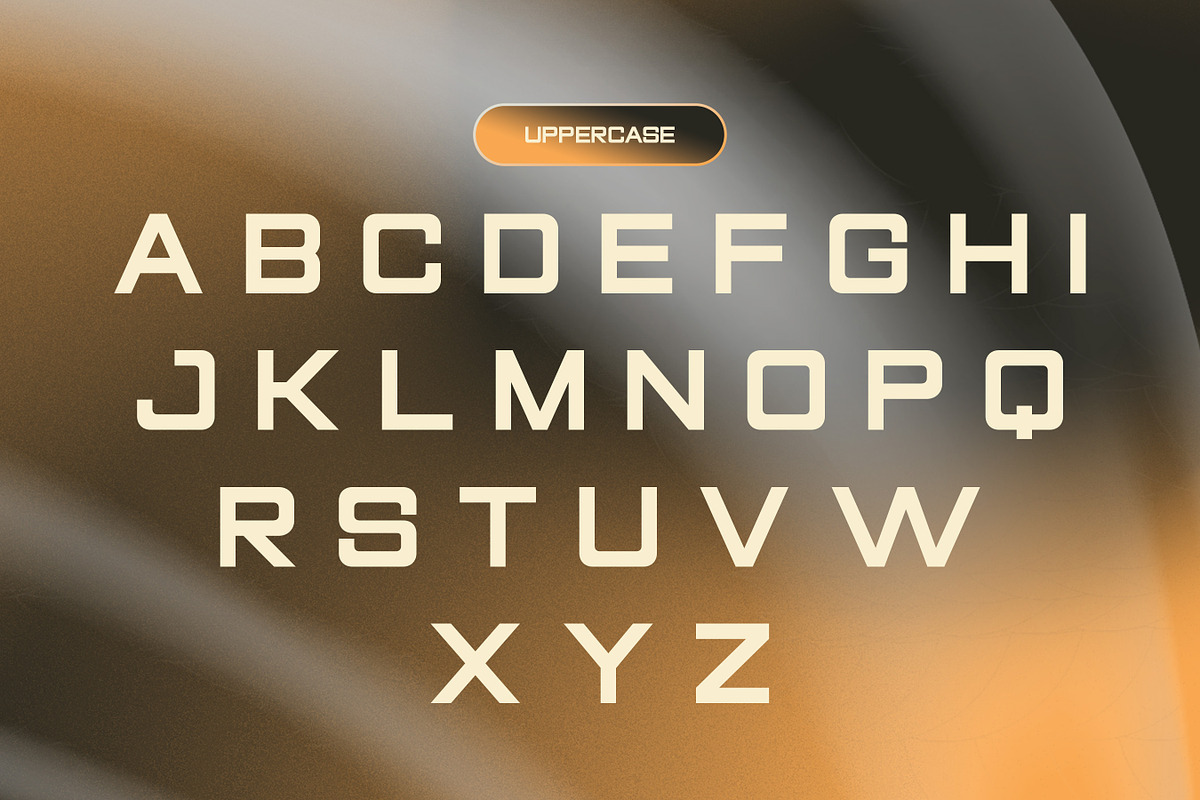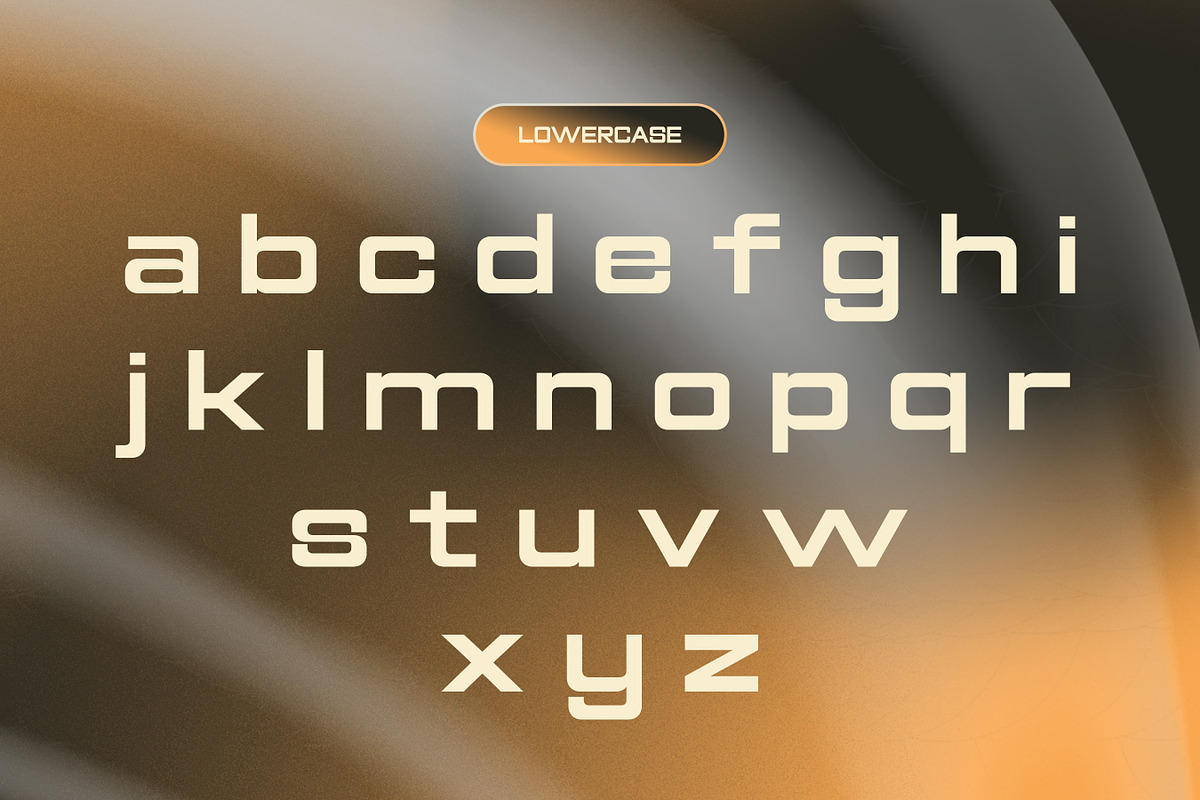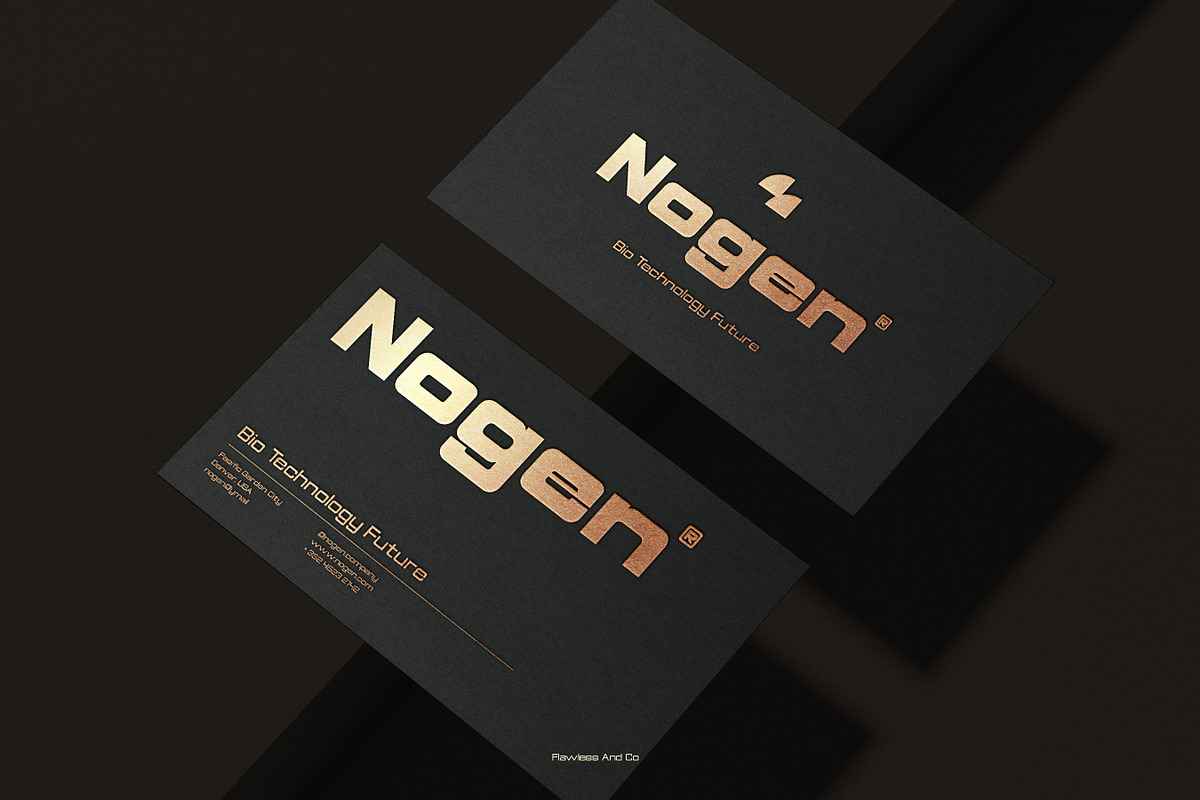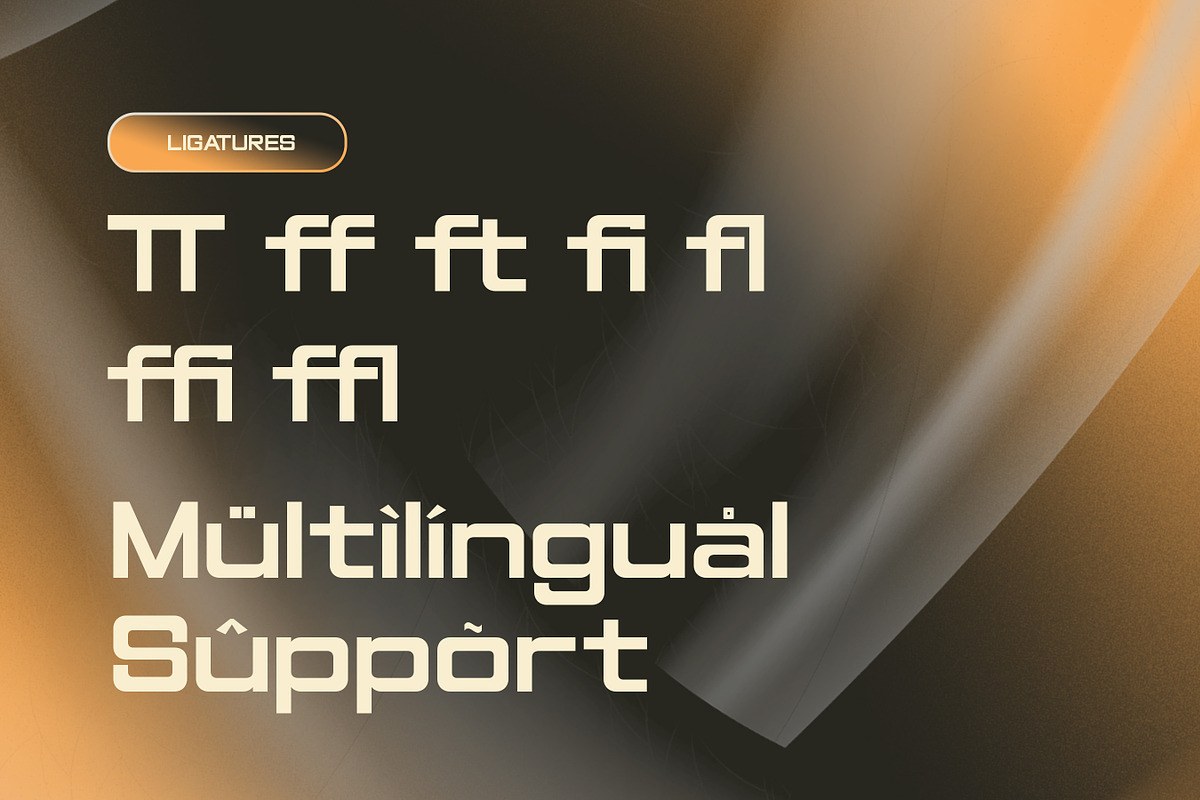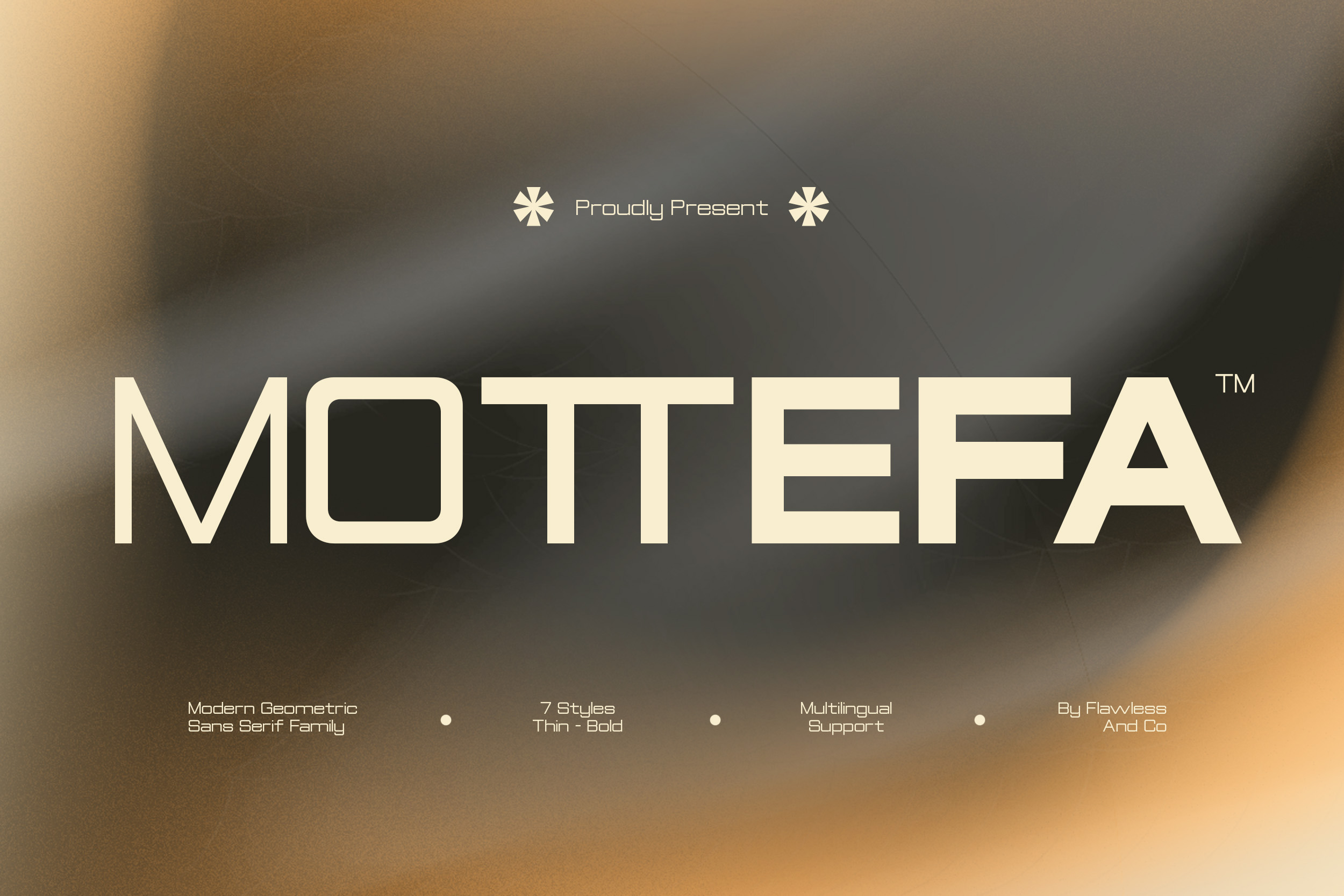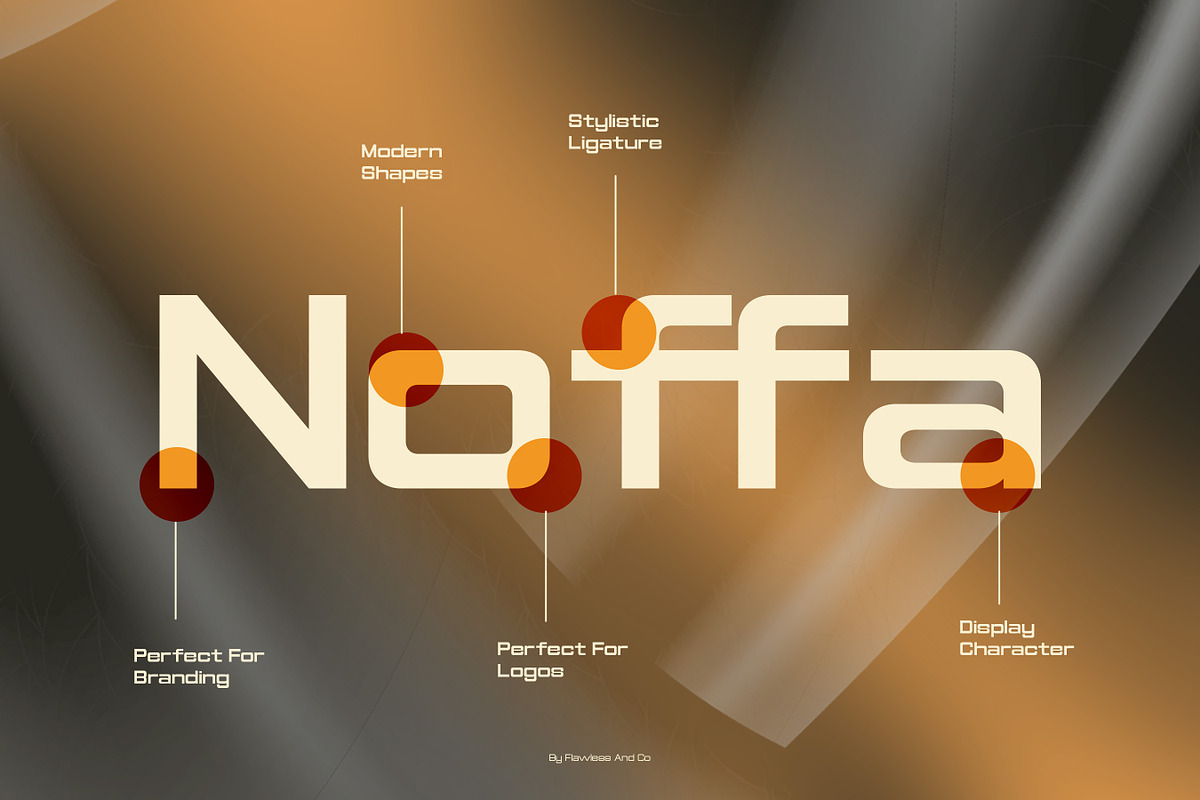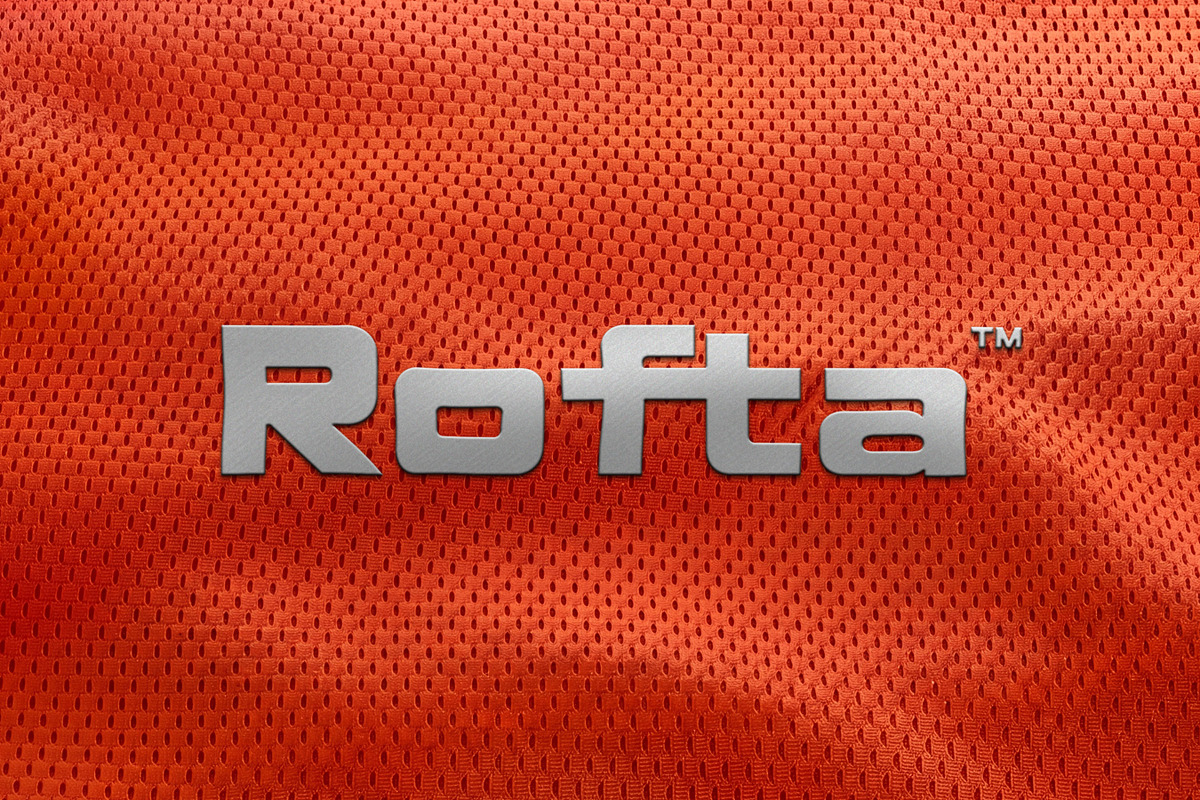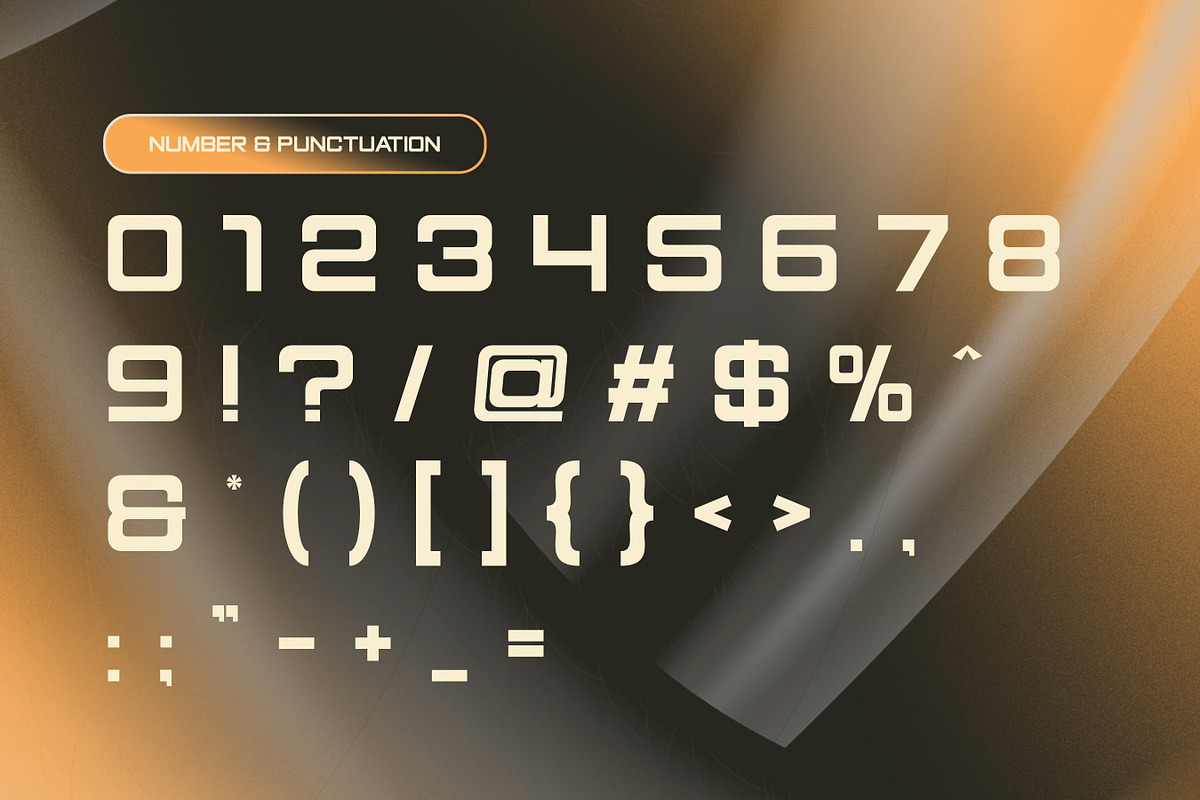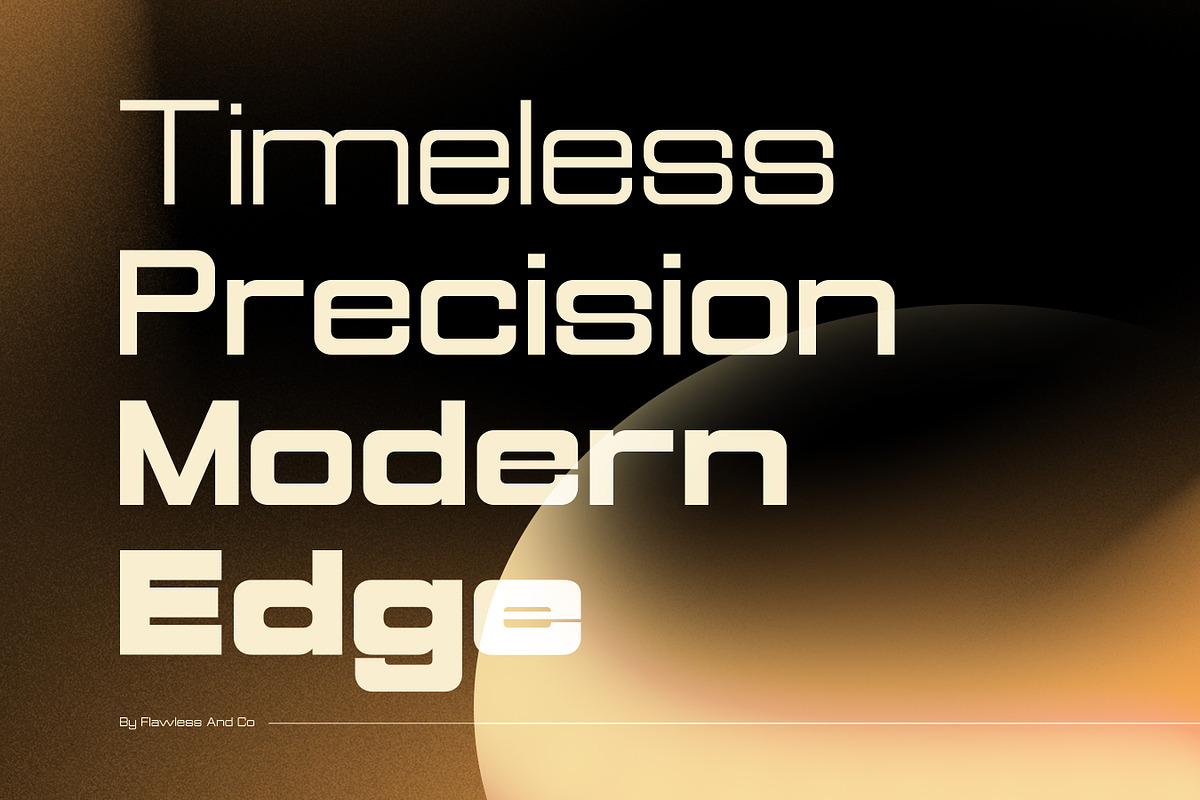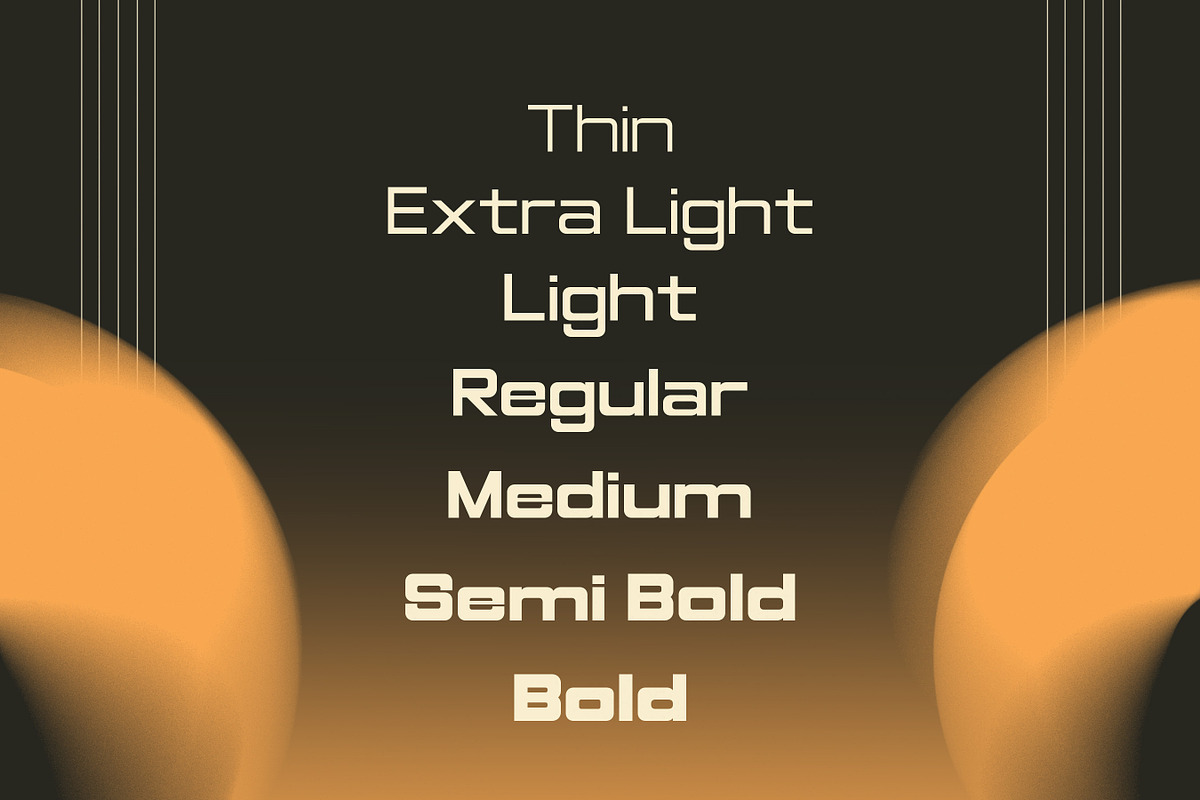
Mottefa - Geometric Sans Family Font
Mottefa is a modern geometric sans family designed for creators who believe that simplicity is the foundation of exceptional design. Defined by clean geometry, balanced proportions, and carefully refined details, Mottefa delivers a contemporary aesthetic that feels confident, versatile, and effortlessly sophisticated. Its minimalist appearance allows every message to stand out with clarity while maintaining a distinctive visual identity that feels both professional and timeless.
Alternates & Ligatures
Mottefa is perfect for designers, creative agencies, startups, corporations, and entrepreneurs looking for a modern sans serif family with exceptional flexibility and a refined geometric aesthetic. It's especially suited for projects that require consistent typography, clean visual systems, and timeless modern branding.
Modern branding and visual identity
Corporate and startup identity systems
Website and mobile UI/UX design
Editorial and publication layouts
Technology branding
Packaging and product design
Marketing and advertising materials
Professional typography systems